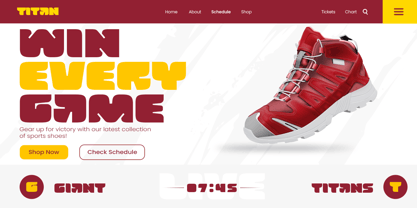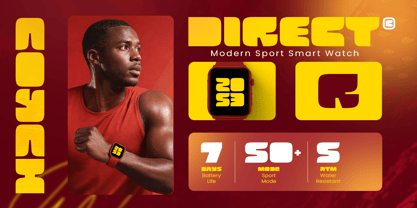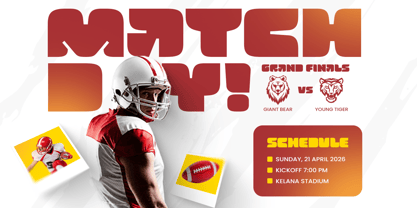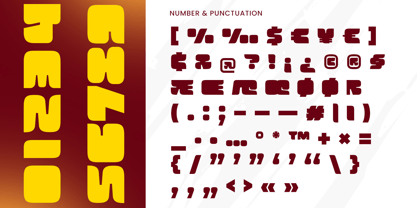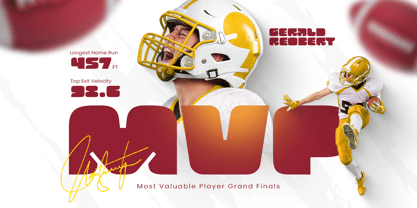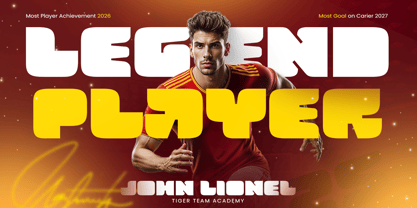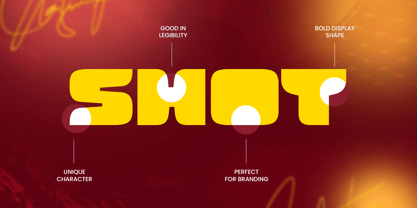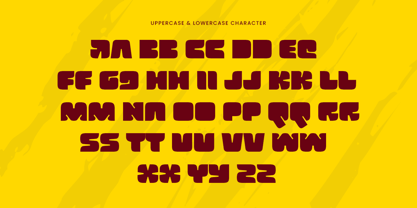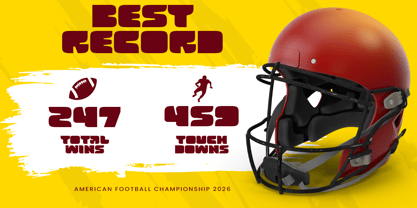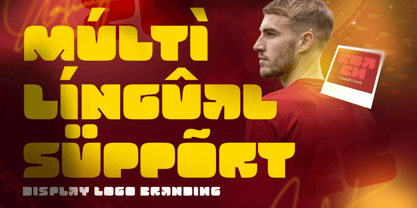
COACH is a display logo branding font designed to deliver confident character and strong visual impact. With bold letterforms, balanced structure, and a modern branding-focused presence, this typeface creates a powerful tone that feels clean, memorable, and instantly brand-ready.
Built for logo-first and headline-driven design, COACH works beautifully across wordmarks, brand identity systems, posters, packaging, labels, signage, website headers, presentations, social media graphics, and promotional visuals. Its display structure gives every composition a bold presence while maintaining readability across both digital and print layouts.
Whether you’re building a modern business identity, creating product branding, designing promotional campaigns, or crafting strong visual communication for creative projects, COACH provides a versatile display foundation that makes your typography feel bold, polished, and unforgettable.
Inspiration Behind COACH
COACH is inspired by contemporary branding typography and modern display design—where strong forms, clean structure, and confident rhythm shape memorable identity systems. The design focuses on impactful presence and clear readability to support logos, headlines, and branding visuals with a sleek, professional edge.
COACH Font Features:
Bold display letterforms optimized for logo and branding design
Clean structure for modern identity and strong headline presence
High readability for posters, packaging, and promotional layouts
Uppercase, lowercase, numerals, and punctuation included
OpenType features for polished professional typesetting
Perfect For
Logos, wordmarks, and modern brand identity systems
Posters, campaigns, and headline-driven promotional design
Packaging, labels, and product branding visuals
Website headers, social media graphics, and digital ads
Presentations, signage, and impactful marketing materials